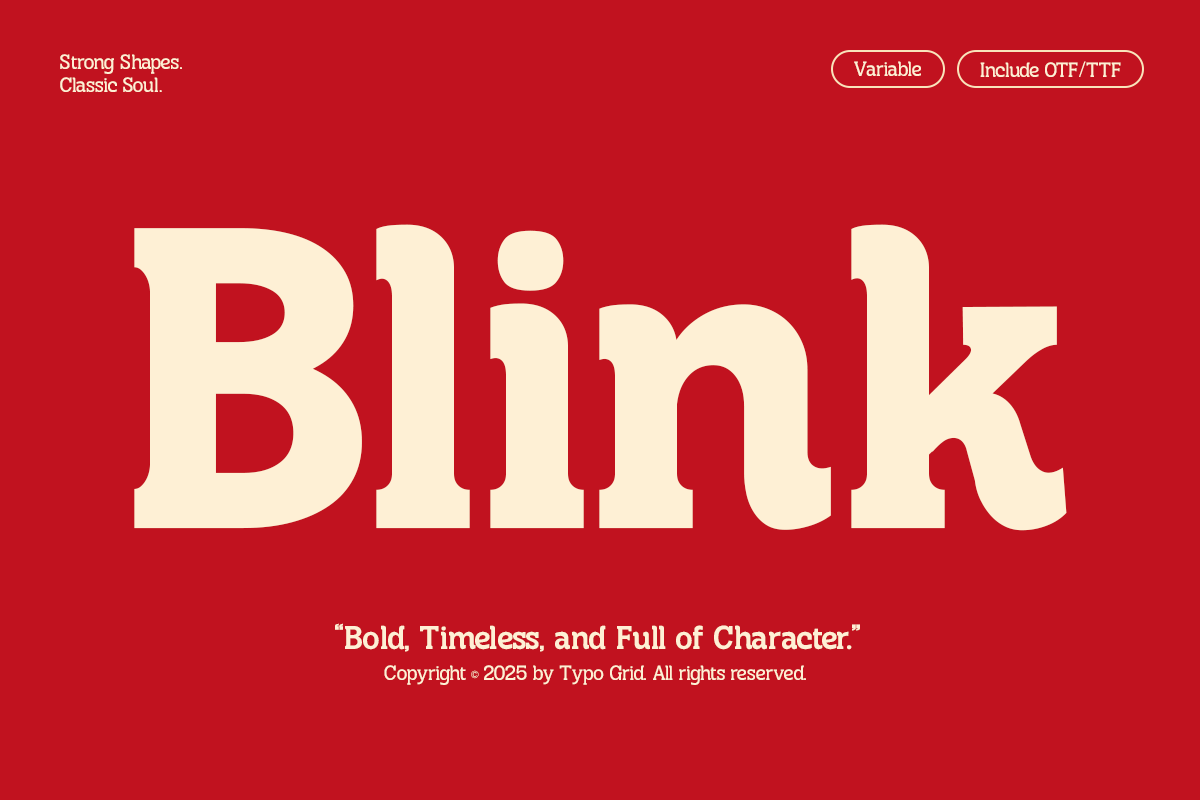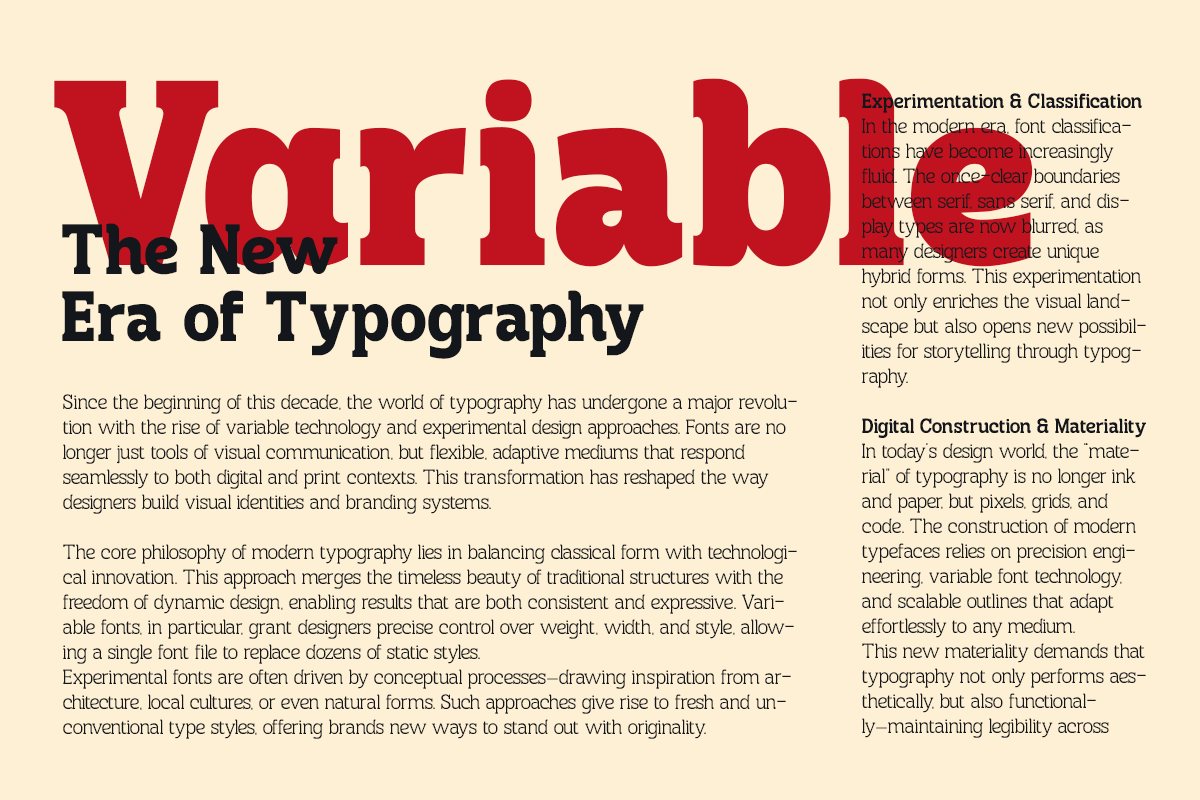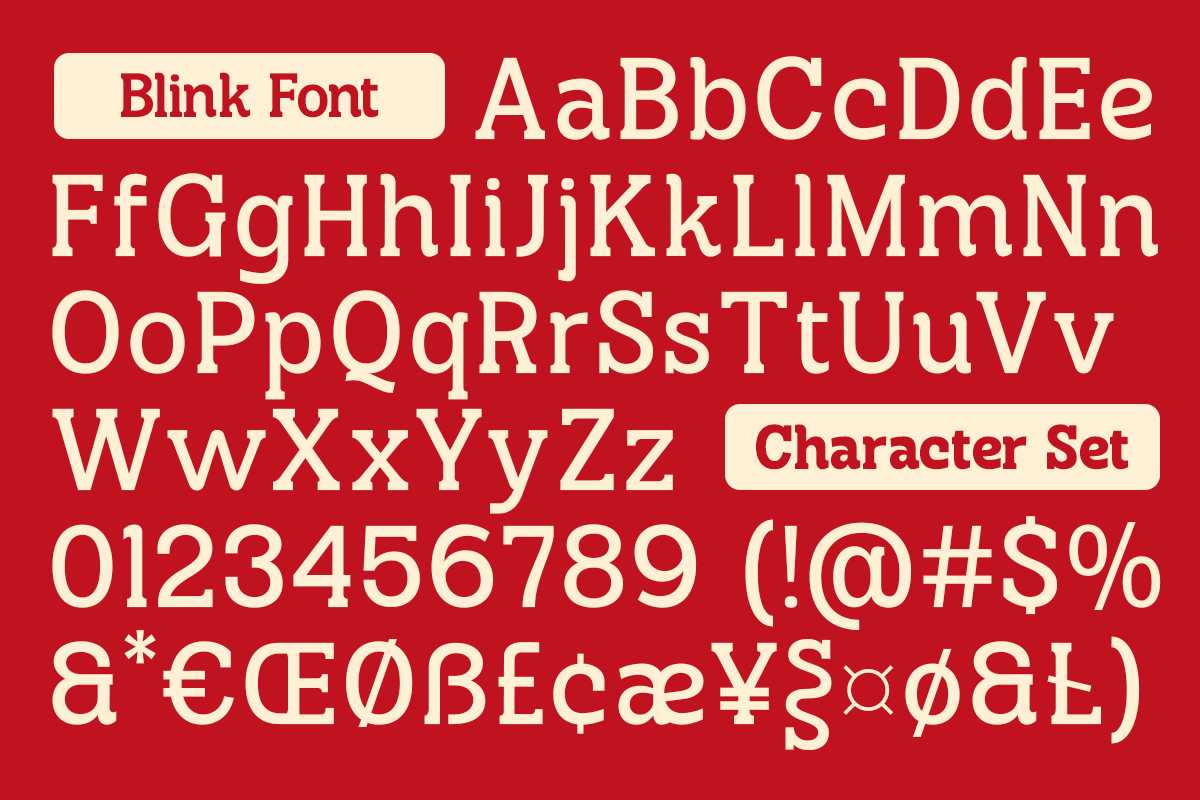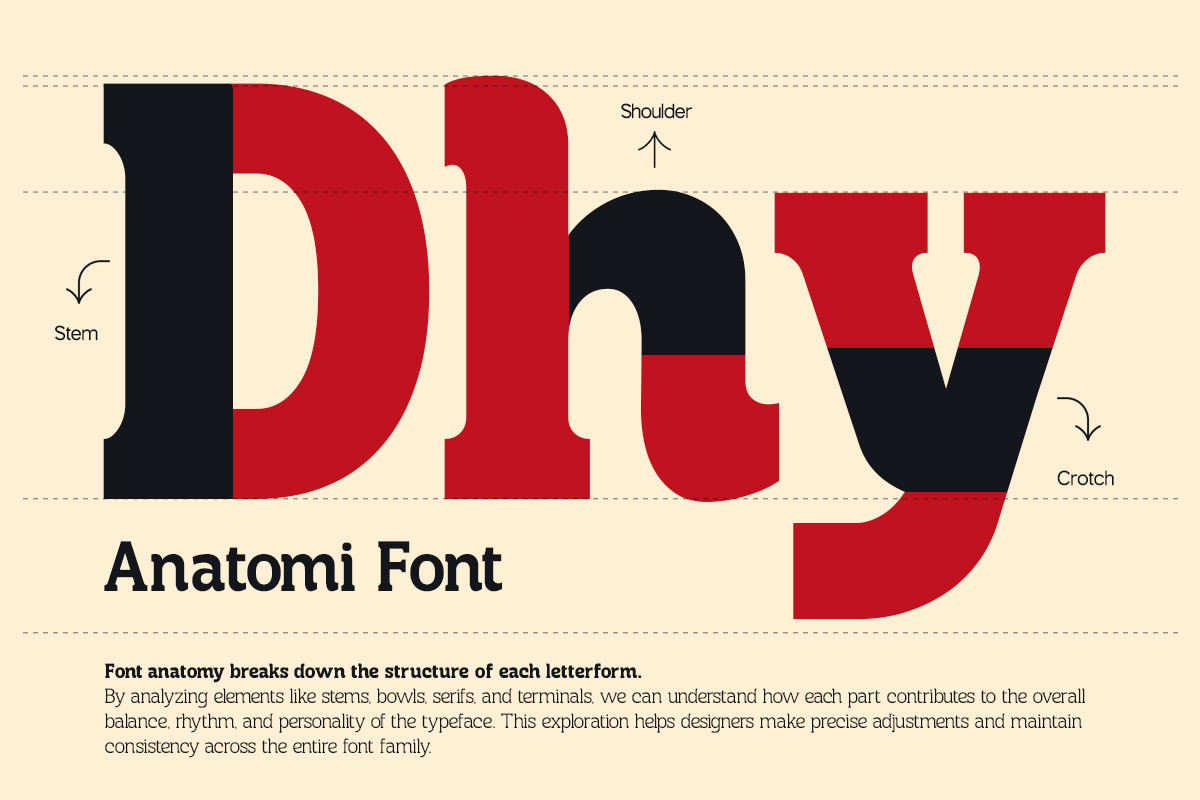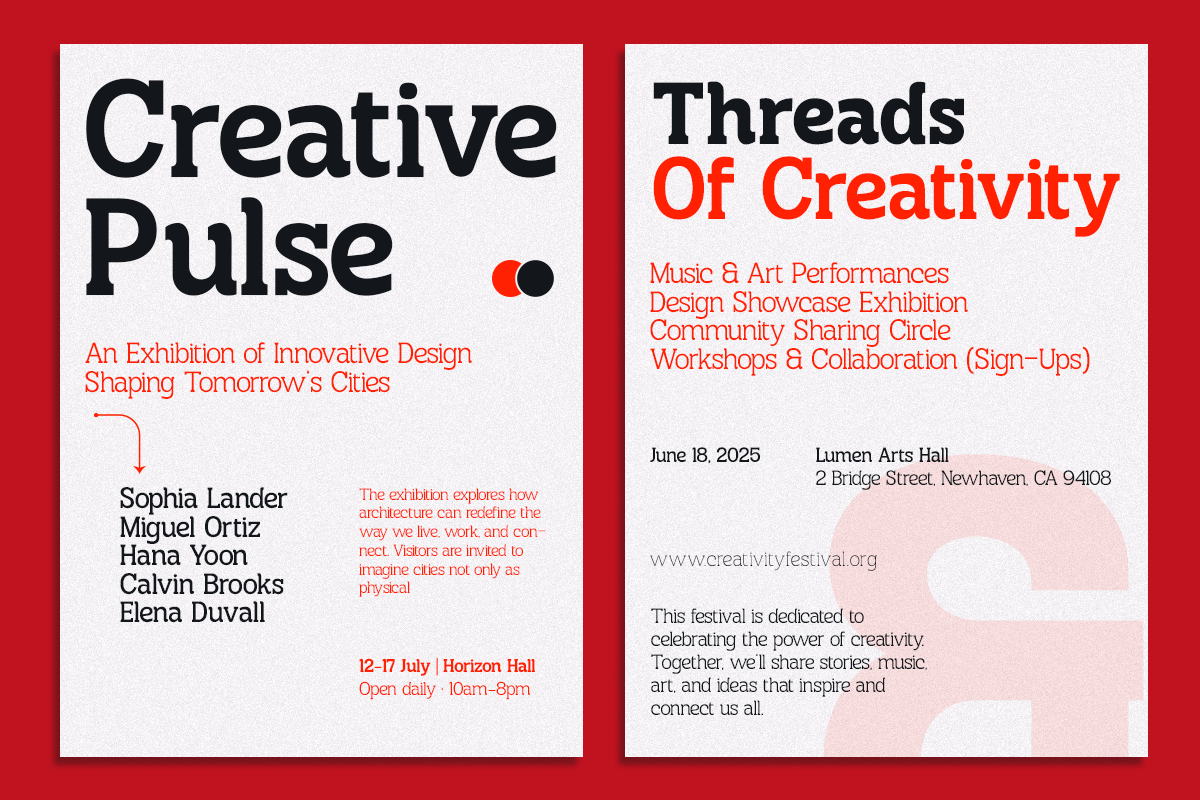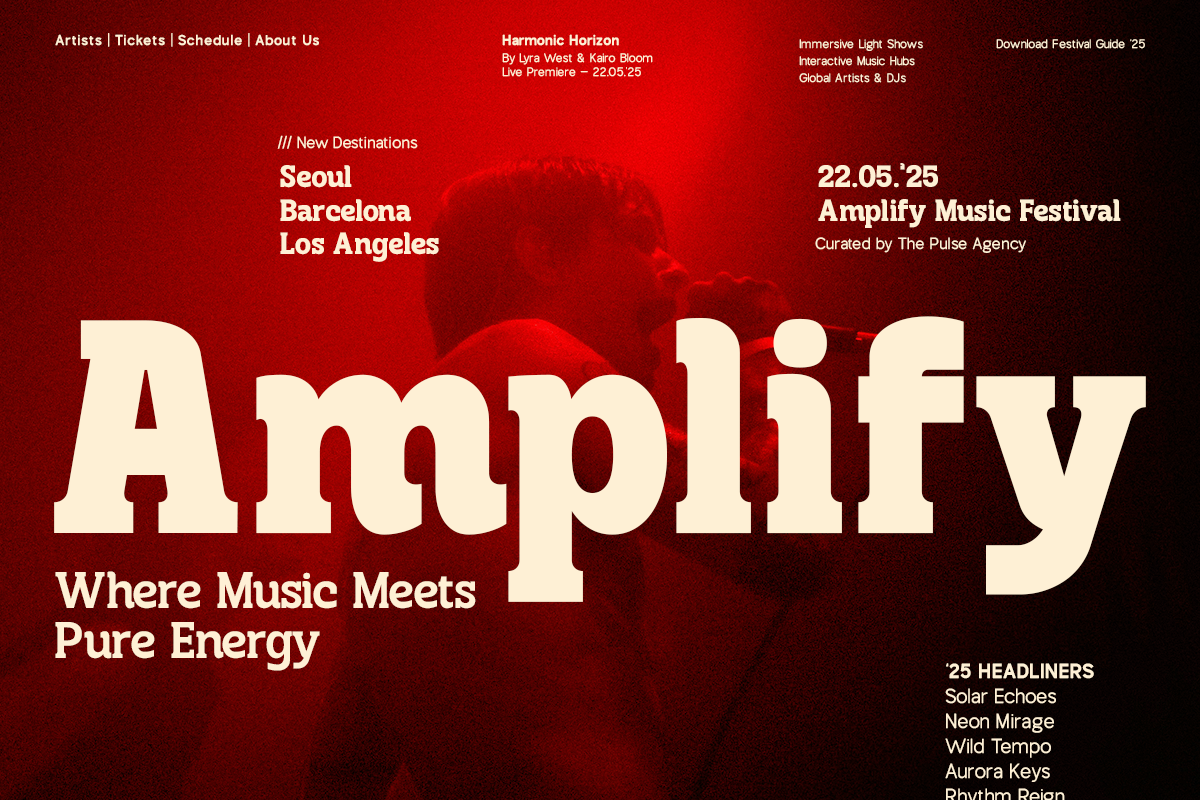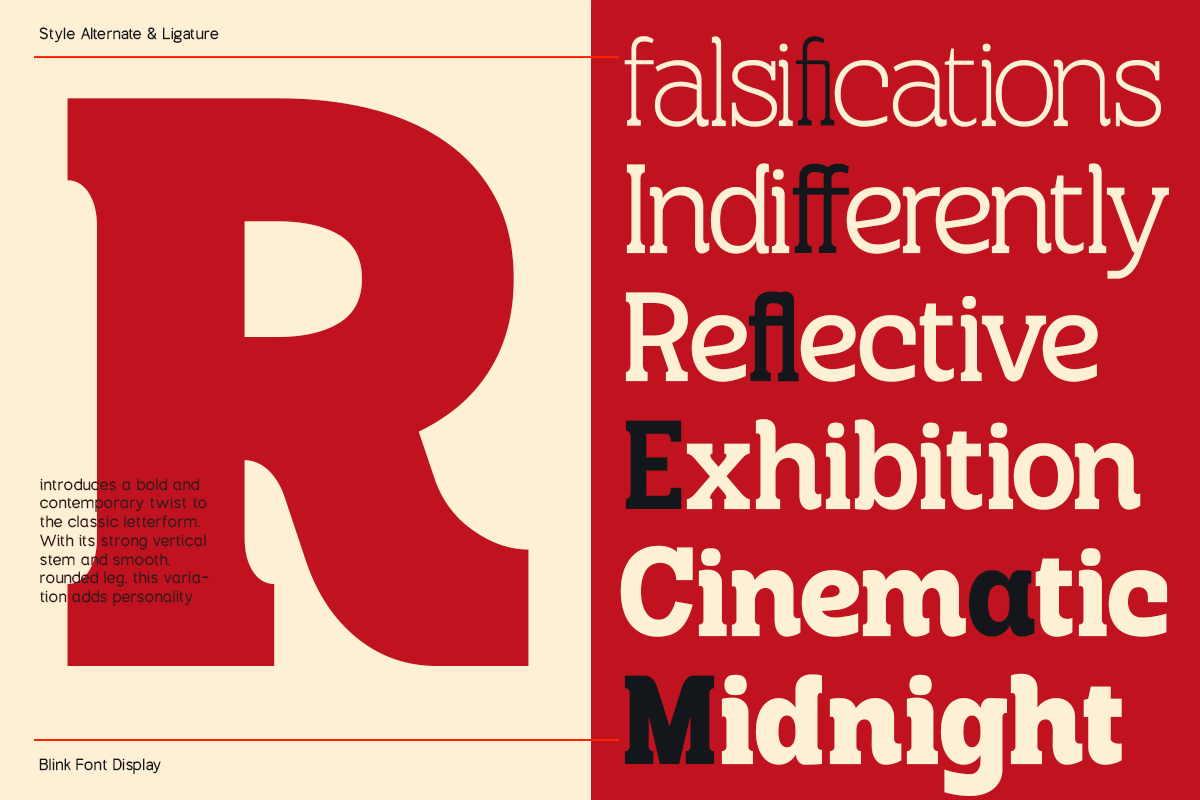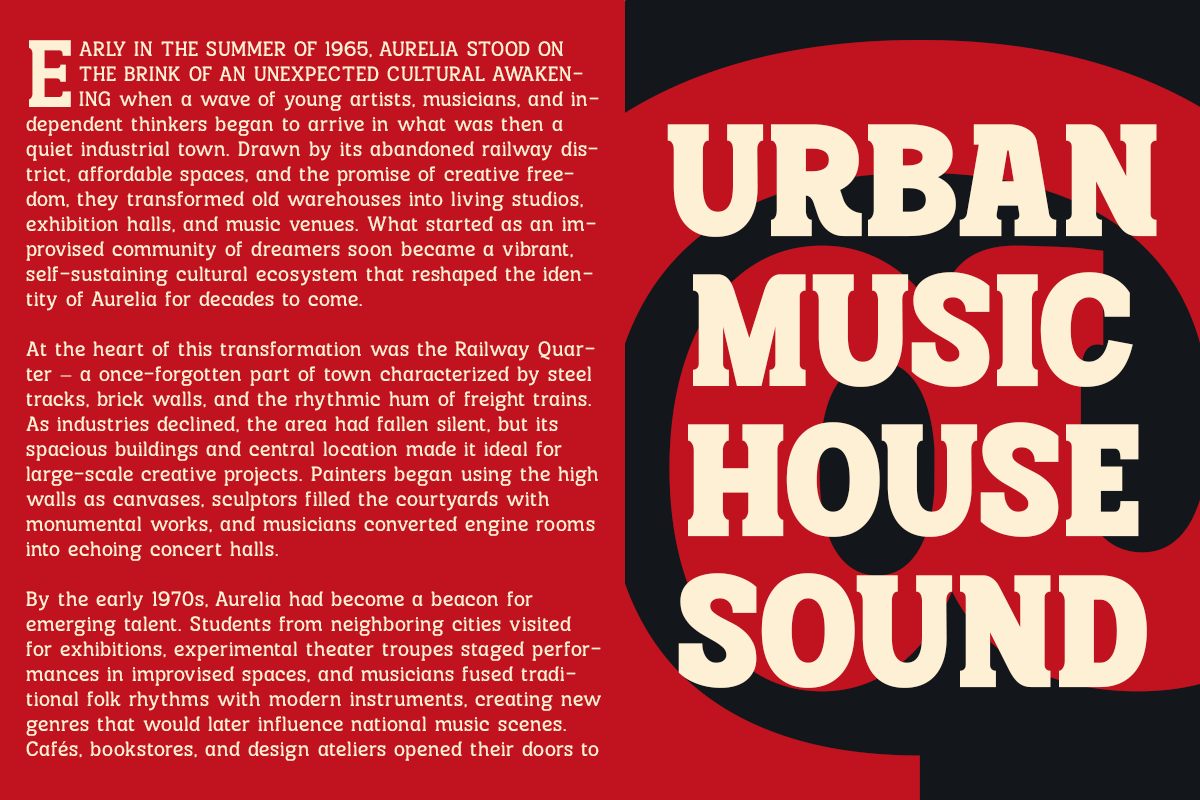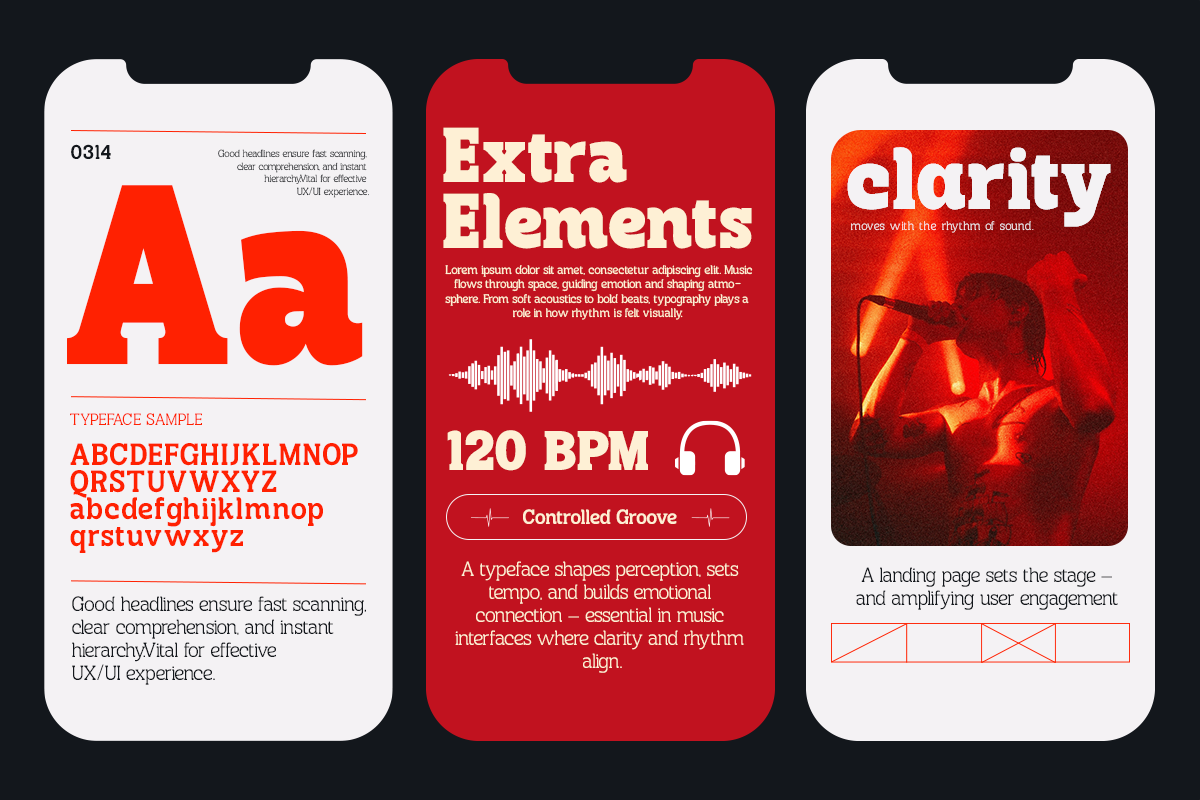
Blink – Bold Slab Serif Typeface
Blink is a bold and elegant slab serif font family designed to deliver strong shapes, timeless appeal, and distinctive character. Built with robust proportions and smooth stroke contrast, Blink blends classic serif strength with modern versatility—making it suitable for a wide range of creative applications.
The letterforms are confident yet refined, offering a solid typographic presence without feeling heavy or rigid. Its pronounced slab serifs provide structure and authority, while softened curves add warmth and balance—resulting in a typeface that feels bold, approachable, and visually engaging.
Design & Performance
Blink is designed to perform beautifully across display-focused layouts while remaining clear and consistent in larger text sizes. It maintains strong visual impact in headlines and titles, while its balanced construction ensures readability across both print and digital platforms.
Bold slab serif font family
Strong, timeless letterforms
Variable font support
Optimized for print and digital use
Clean spacing and refined typographic details
Ideal For
Editorial layouts & magazines
Branding and visual identity systems
Book covers & packaging design
Posters, headlines, and display typography
Digital platforms and professional presentations
Bold without being overpowering, Blink brings clarity, character, and classic confidence to your typography—making it a reliable choice for designers who want their work to feel strong, expressive, and memorable.
Blink is a bold slab serif typeface family featuring robust proportions and smooth stroke contrast. It includes variable font support with OTF and TTF files, optimized for both print and digital use.